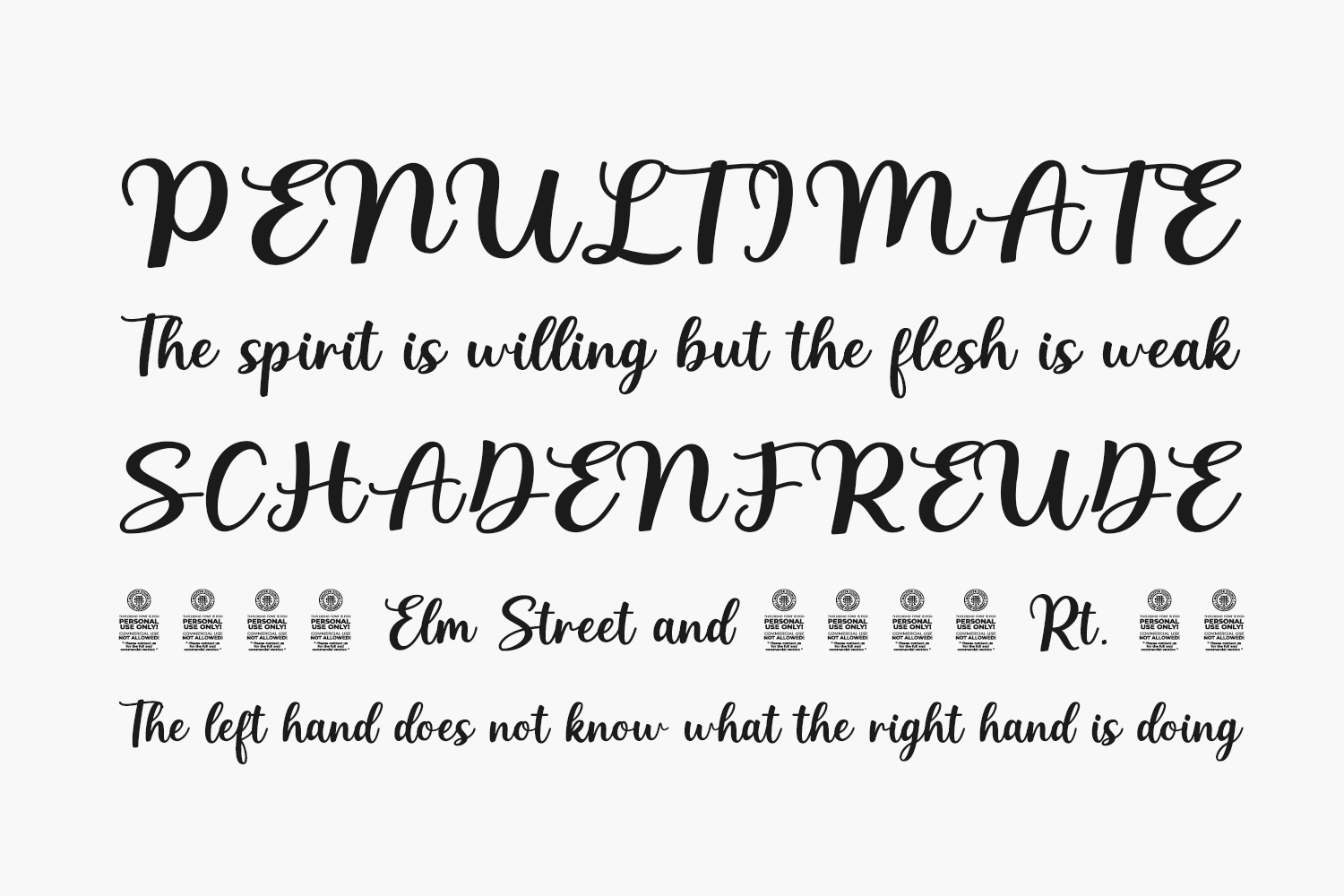
Matteny Angels Free Font exudes beauty and grace with its flowing script. Elevate your design projects with a touch of luxury by incorporating this exquisite font. Whether it’s for branding, invitations, or any creative endeavor, Matteny Angels adds a sophisticated flair that captivates the eye. Download the font for free if you need it for personal use or purchase the full version for commercial use.